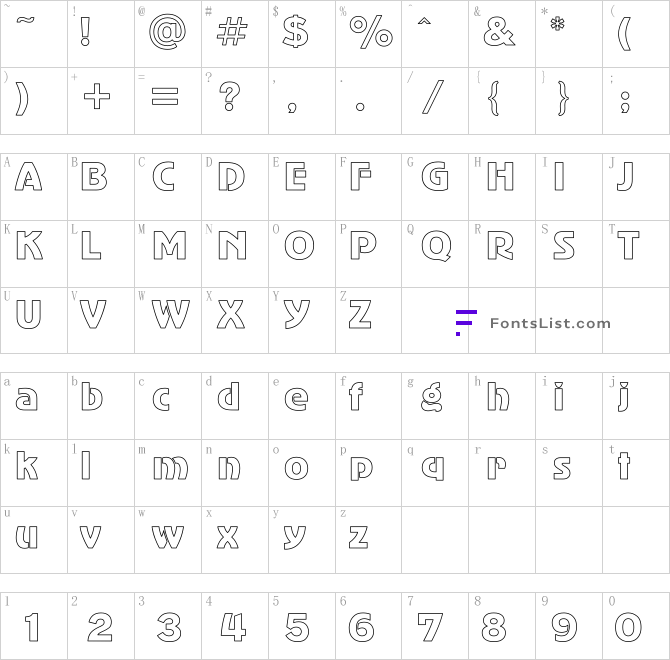
- Font Name:AdverGothic Ho
AdverGothic-Ho.ttf is a very beautiful artistic font, AdverGothic-Ho.ttf is widely used in the design and printing of various books and pictures,AdverGothic-Ho.ttf has a strong visual impact,AdverGothic-Ho.ttf is a commonly used font in newspapers, magazines and books, and is used in posters, e-commerce Poster design, store design, logo design, font design and other fields.AdverGothic-Ho.